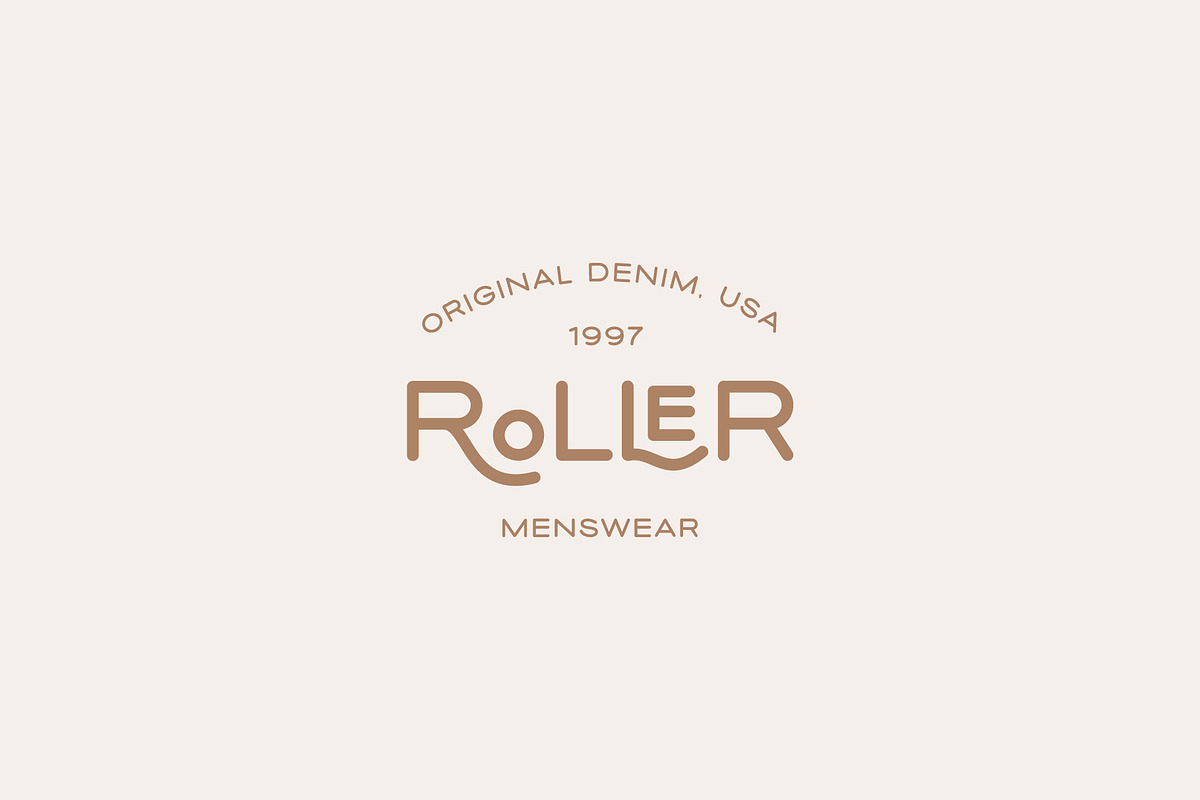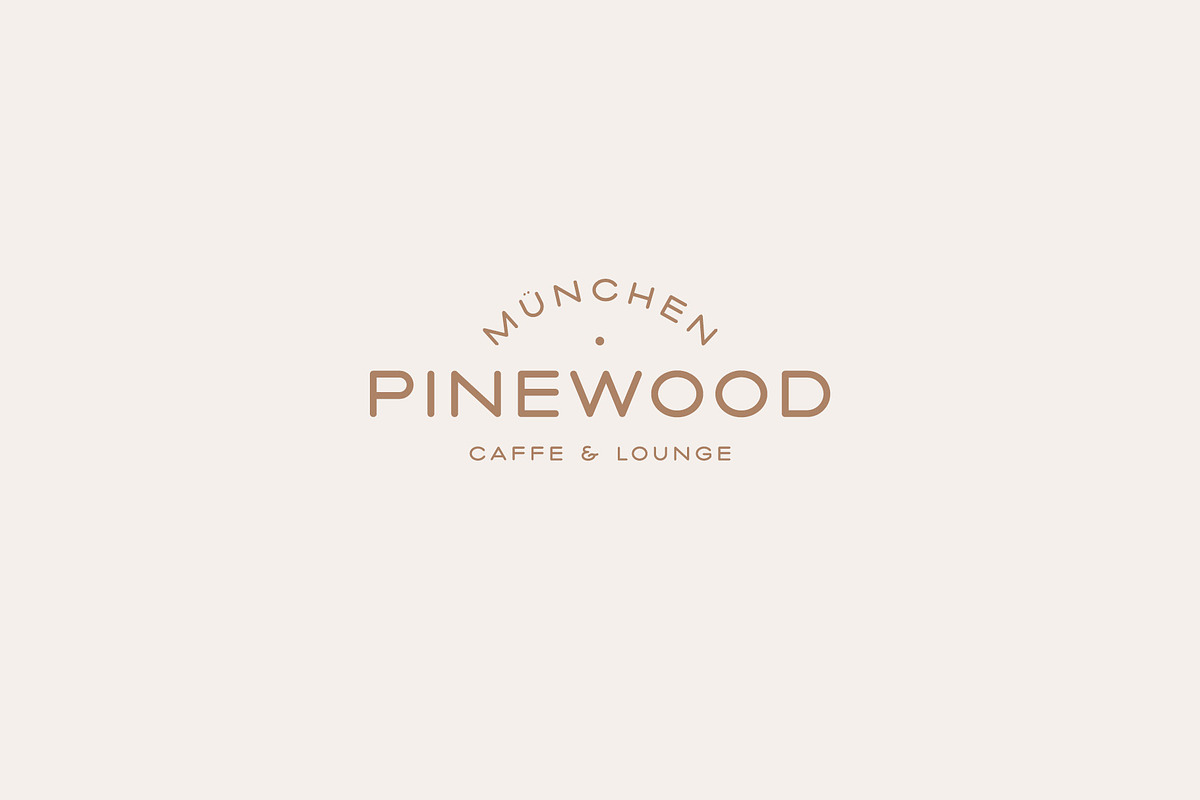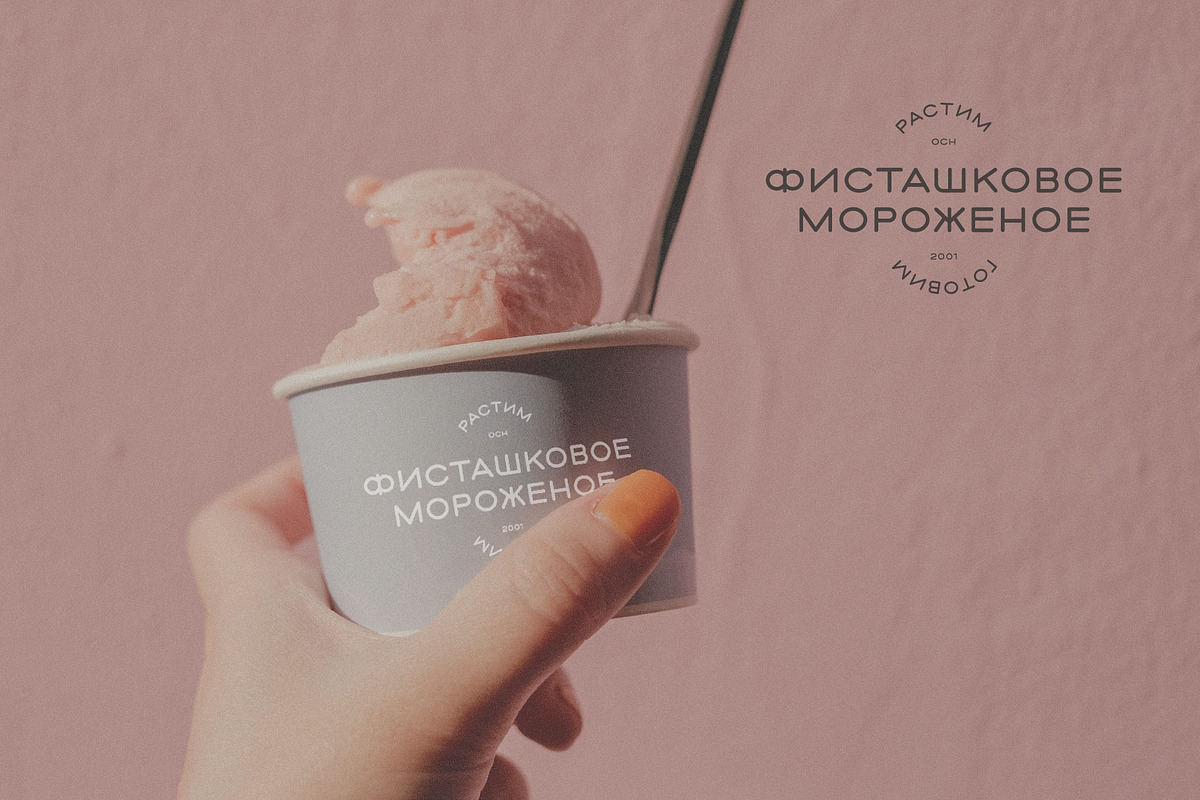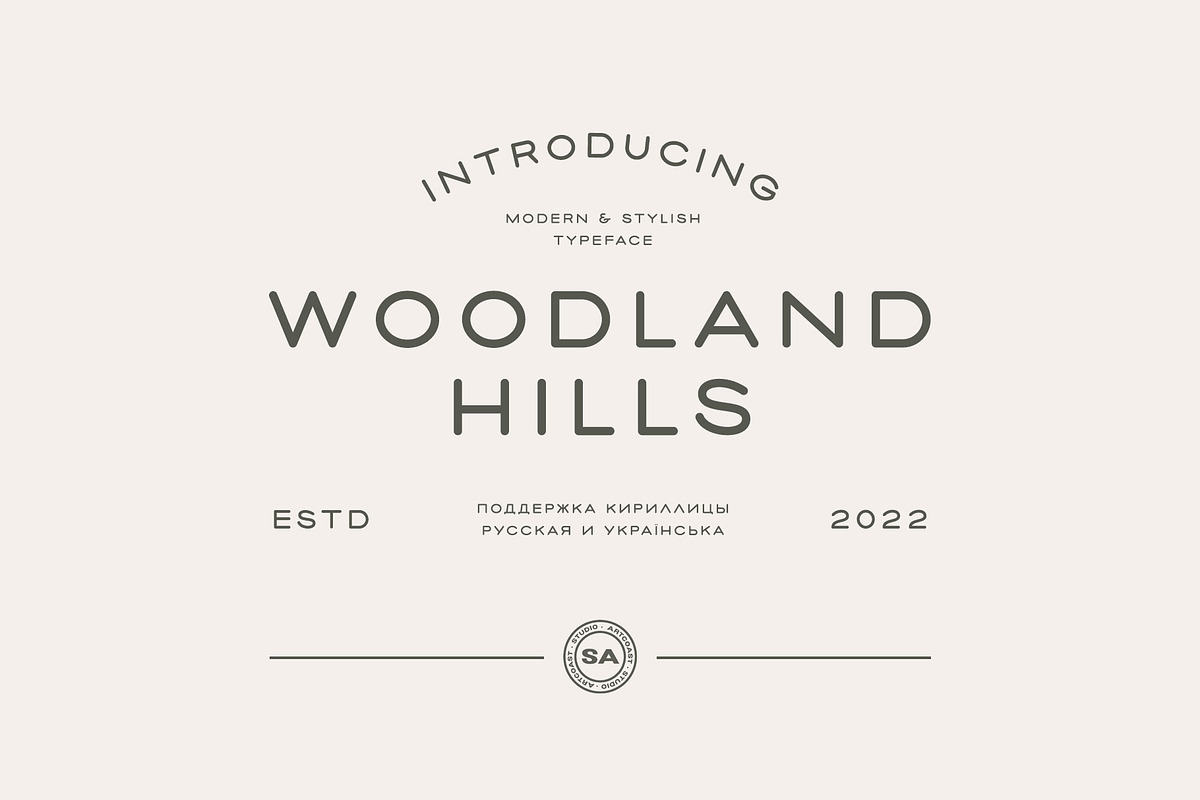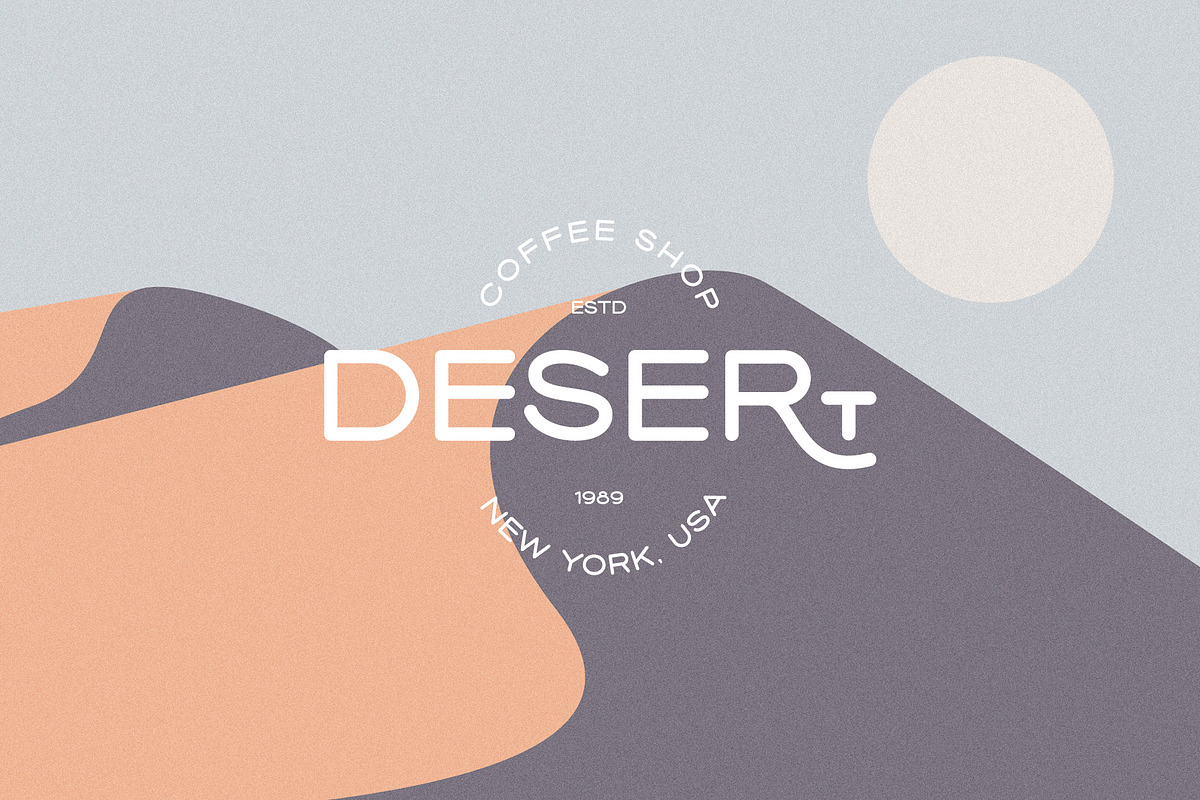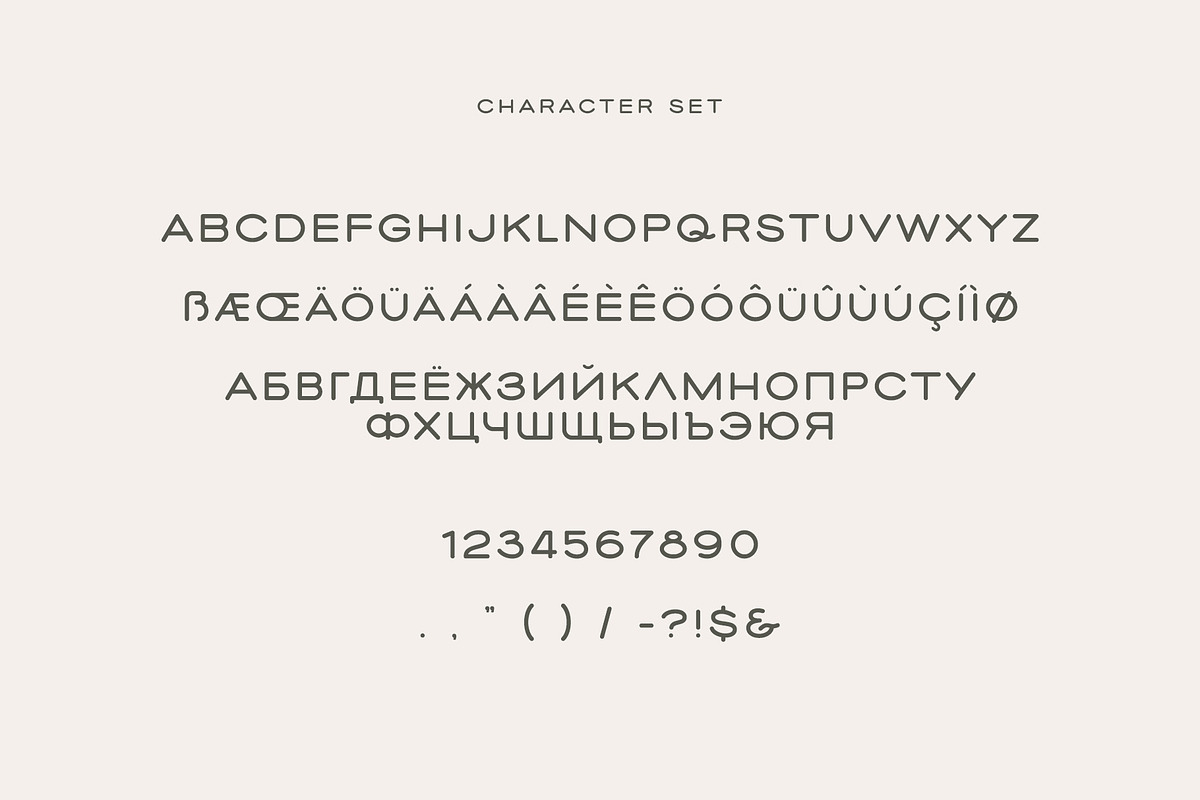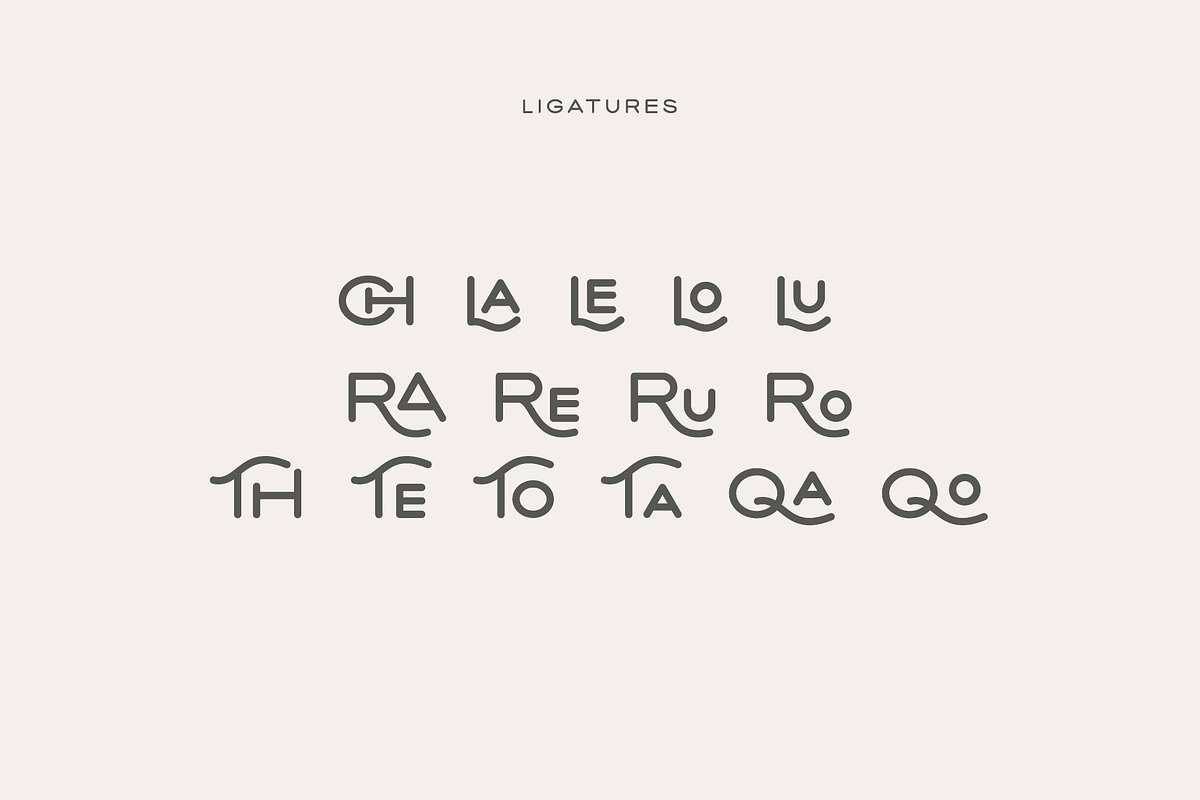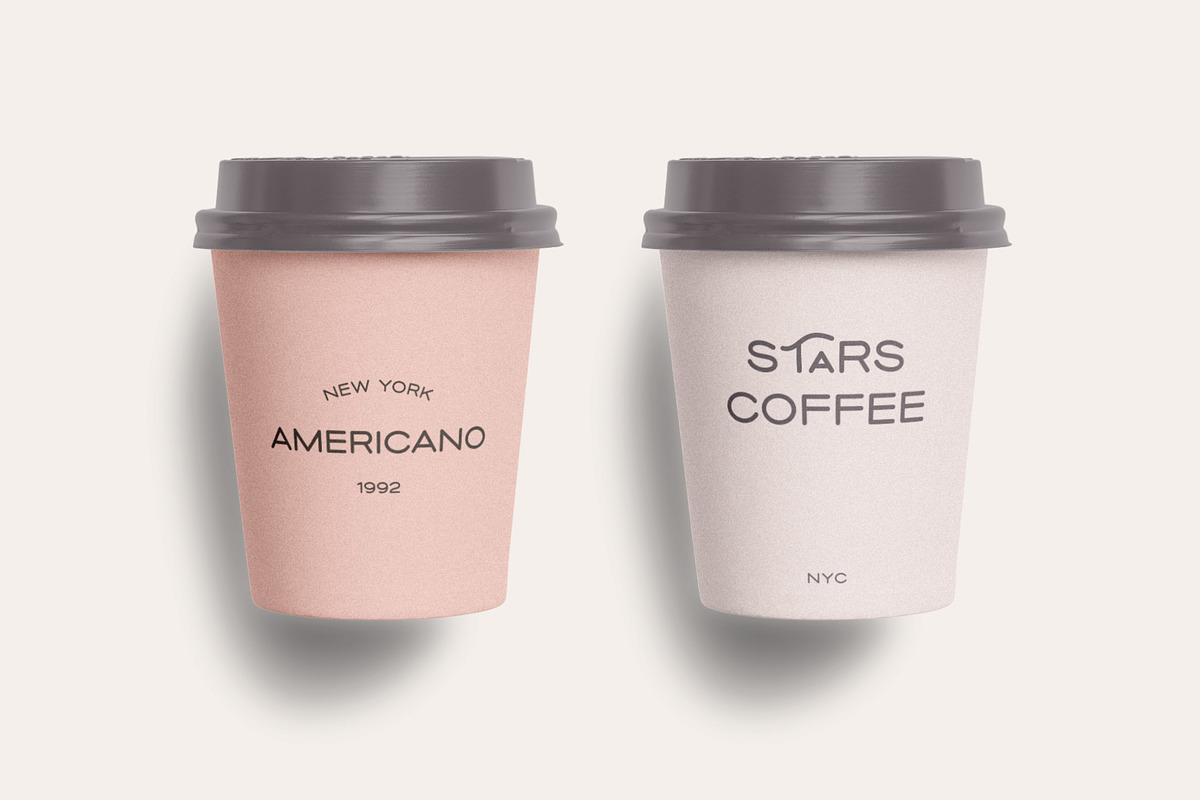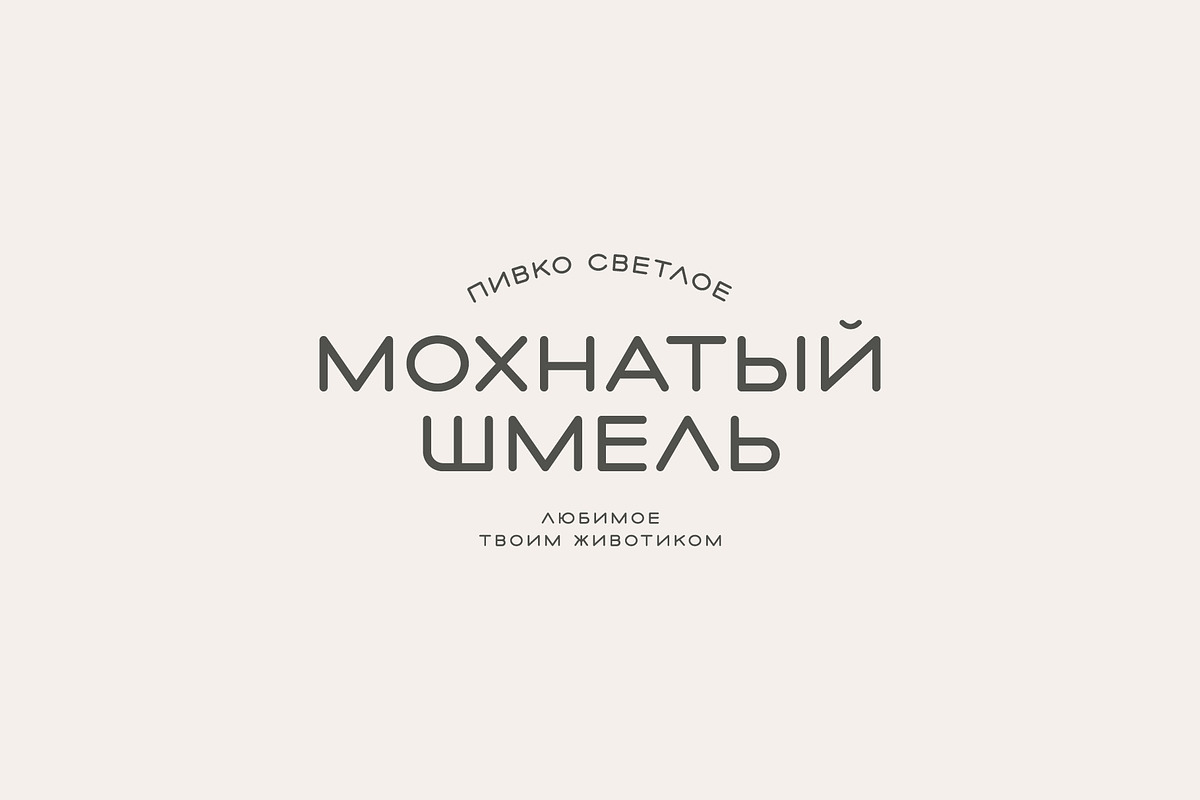
Woodland Hills Modern Display Font
Woodland Hills is a clean uppercase display sans serif with wide proportions, geometric details, and a refined contemporary character. Designed for memorable brand identities, it combines minimalist structure with distinctive alternates and ligatures.
Uppercase Latin and Cyrillic alphabets
Russian and Ukrainian language support
Extended Latin characters
Numerals and punctuation
Contextual alternates and custom ligatures
One carefully crafted regular style
Woodland Hills is ideal for logos, packaging, editorial headlines, food and beverage branding, fashion labels, café identities, posters, social media graphics, and elegant wordmarks. Use the alternates and ligatures to add personality while keeping the typography clean and readable.